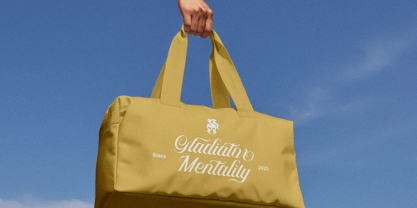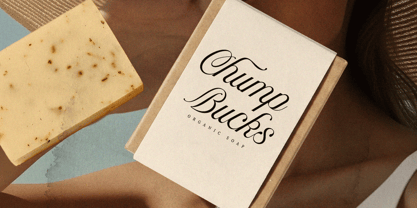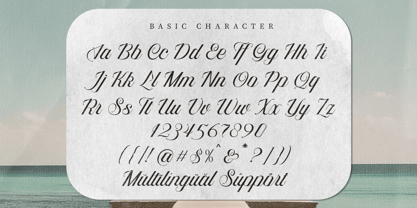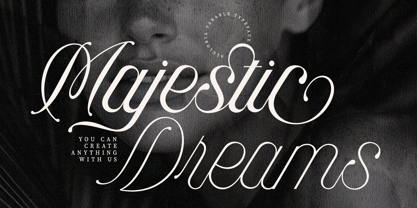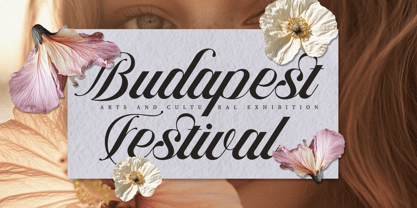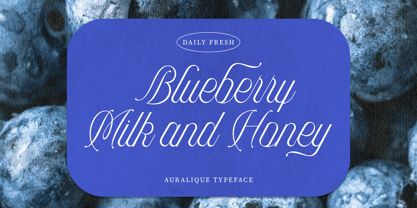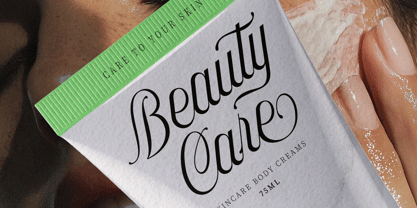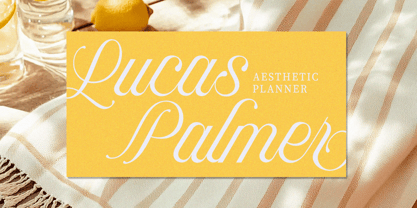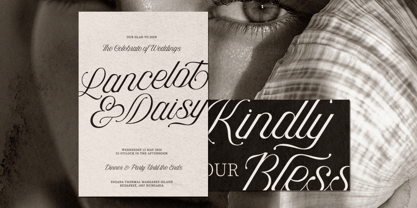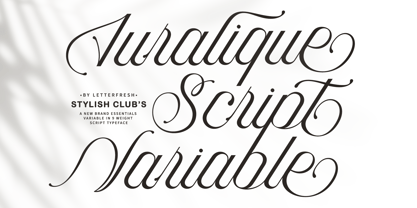
Auralique Script Pro
The Auralique Script Pro Font Family was designed by Rizki Andika and published by Letterfreshstudio. Auralique Script Pro contains 10 styles and family package options.
Introducing Auralique Script Variable Pro, a new curve that carefully creates and balances script typography with personality. You can use it for logos, badges, emblems, packaging, headlines, posters, t-shirts/apparel, greeting cards, wedding invitations, and more. The flowing characters are ideal for creating compelling messages. Mix and match Auralique Script Variable Pro with a range of weights to suit your project. The alternate characters in this font are divided into several OpenType features such as Stylistic Alternate, Stylistic Set, and Ligature.